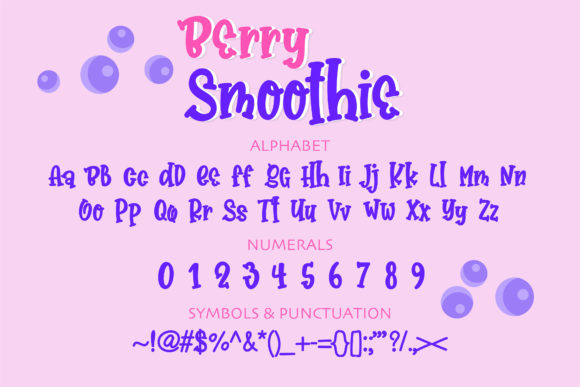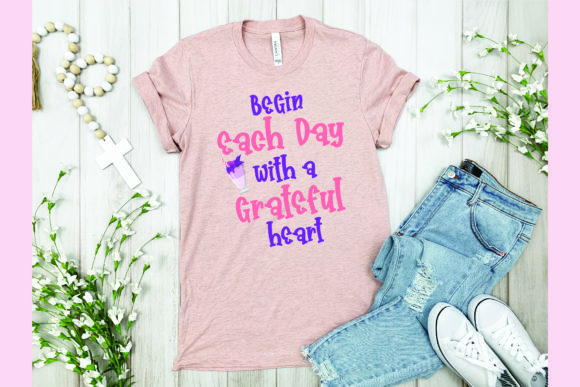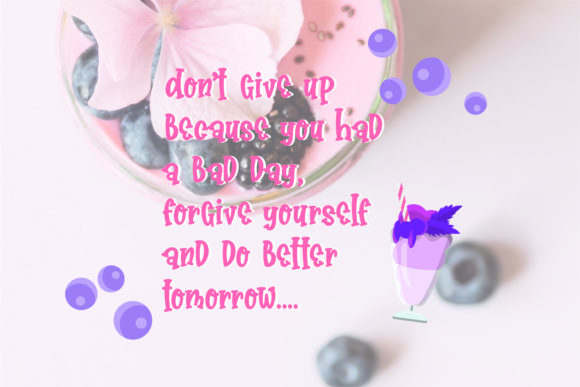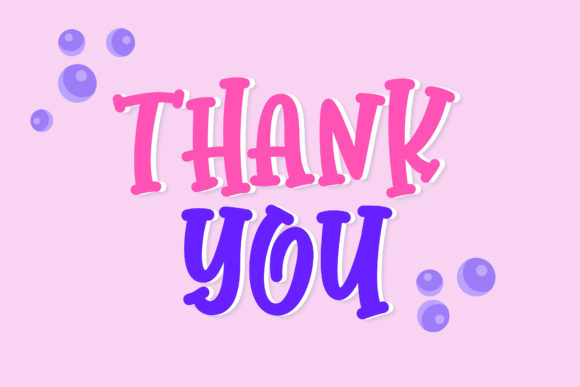
Unleash Your Creativity with Berry Smoothie Font
Have you ever been brainstorming a new project idea, only to be stuck on the perfect font to bring it to life? You’re not alone! We’ve all been there, scrolling through font libraries, searching for that one special something that will make our designs truly pop.
Enter Berry Smoothie Font, a cool and quirky display font that’s sure to add a touch of warmth and jolliness to any project. This beautiful font is designed to be fun and playful, making it the perfect choice for designers looking to add some personality to their work. With its endless variations, you’ll be able to experiment and find the perfect fit for your unique style.
Berry Smoothie Font Key Features
- Font Family: Berry Smoothie is a unique, hand-drawn font family designed for creative and playful applications.
- Font Size: Berry Smoothie is available in 6 font sizes, ranging from 12 to 72 points, making it suitable for a variety of design projects.
- Resolution: Designed for high-resolution displays, Berry Smoothie is optimized for use at 300 DPI or higher, ensuring crisp and clear typography.
- Unique Characteristics: This font features a distinctive, hand-painted style with subtle texture and imperfections, adding a touch of whimsy and personality to your designs.
- Language Support: Berry Smoothie supports a wide range of languages, including Latin, Cyrillic, and Greek scripts, making it a versatile choice for global design projects.
Berry Smoothie Font Review
I recently had the chance to work with the Berry Smoothie Font, and I must say it’s a unique and fun addition to any project. ✨ The font’s playful and whimsical feel makes it perfect for branding and marketing materials, especially for younger audiences. ✨ The bold and colorful design elements add a level of energy and excitement that’s hard to find in more traditional fonts.
However, there are some limitations to consider. ⚠️ The font’s size and style can become overwhelming if used too extensively, so it’s essential to use it sparingly and balance it with other design elements. ⚠️ Additionally, the font’s lack of versatility can make it challenging to use in more formal or professional settings.
In terms of overall impression, I’d say the Berry Smoothie Font is a great choice for designers looking to add a touch of fun and personality to their projects. It’s perfect for projects that require a youthful and energetic vibe, such as social media campaigns, children’s products, or restaurant menus.
- Best for: Younger audiences, playful branding, and energetic marketing materials.
- Not ideal for: Formal or professional settings, projects requiring subtlety or sophistication.
For best results, use Berry Smoothie Font for titles, headings, and other emphasis text.
It’s also suitable for branding and packaging designs, where a playful and eye-catching font is desired.